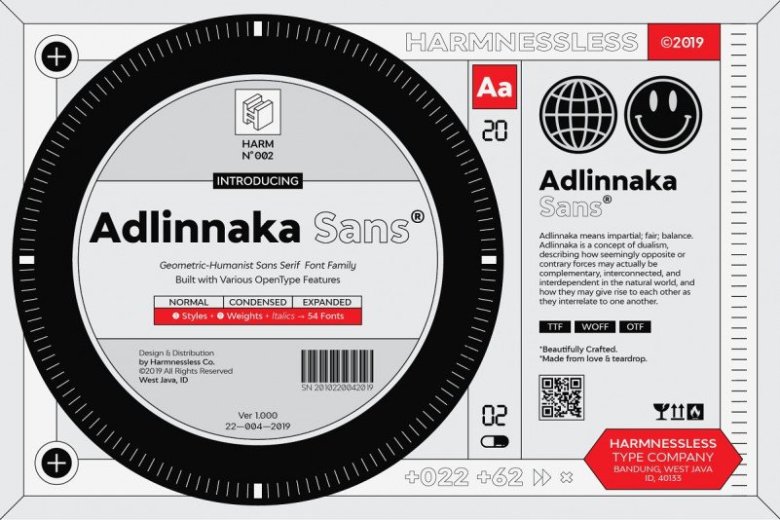
Adlinnaka Font Family
Adlinnaka – is a modern sans serif font containing 9 weights with italics (that’s 52 fonts in total). It’s strong appearance will be useful when creating commanding titles and headlines that demand attention! It is designed and shared by harmnessless. Adlinnaka Sans is a humanist geometric sans with sharp details and a distinctive arrangement, it further extends the limits of the x-height, providing unparalleled flexibility. This font has a high legibility and styles which makes it a very competent face for both, display and body copy purposes.